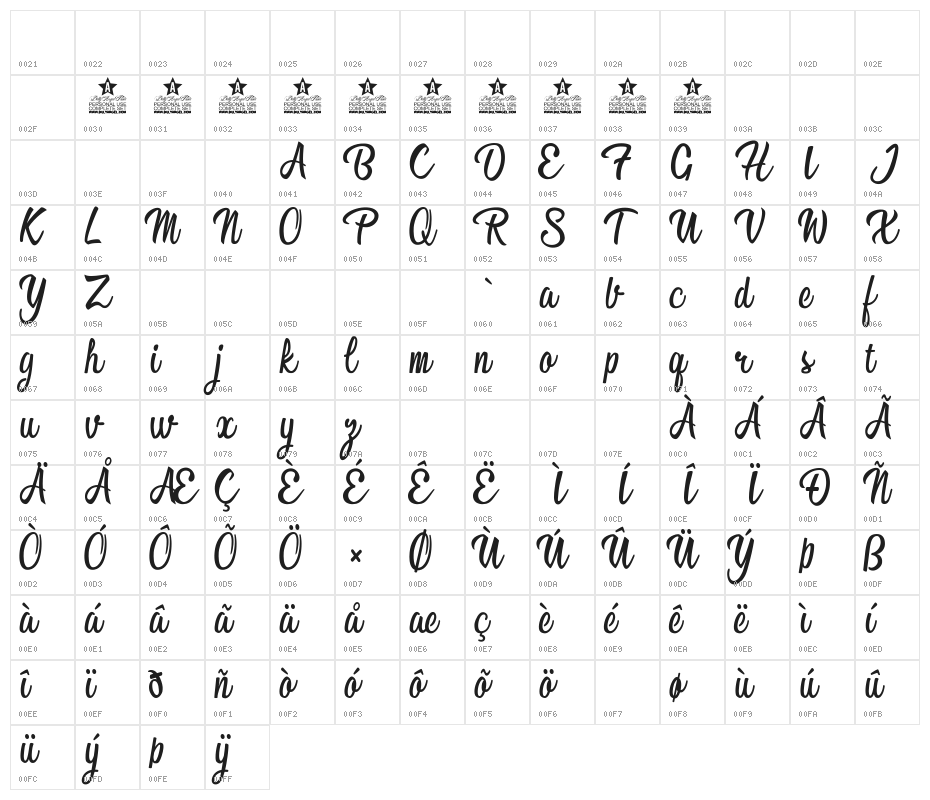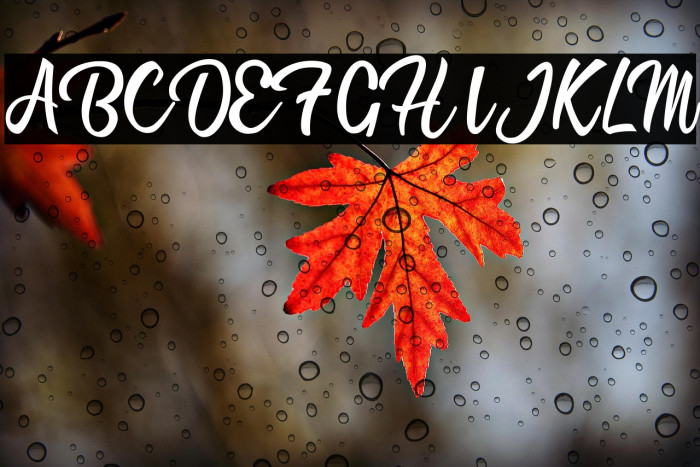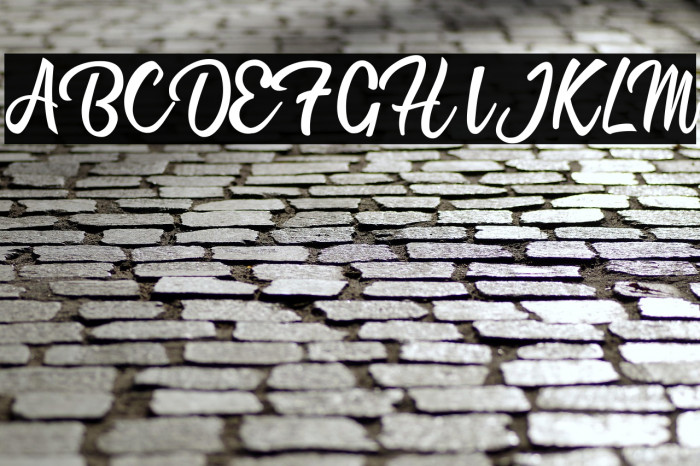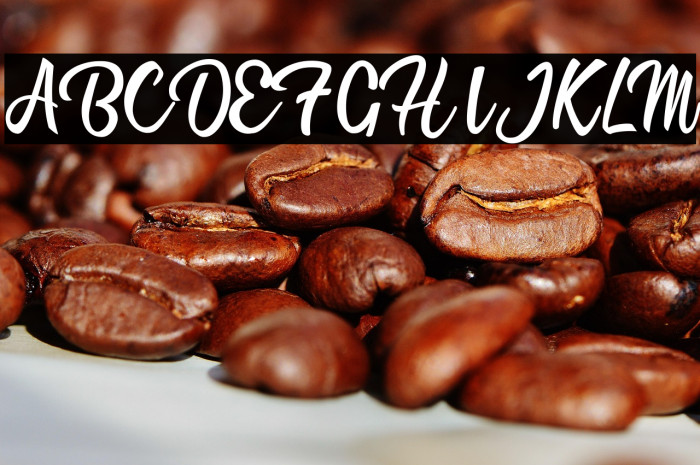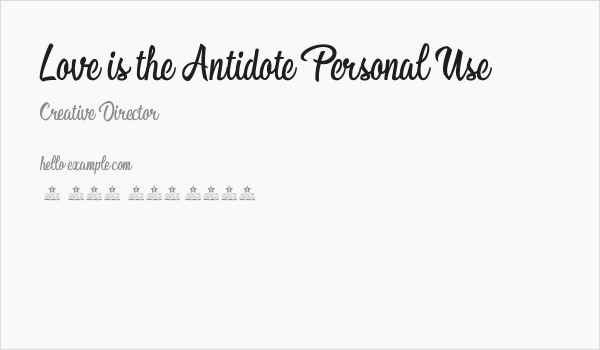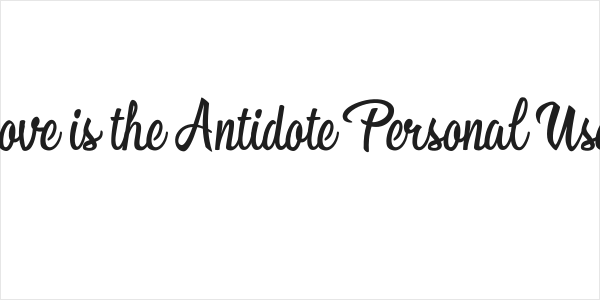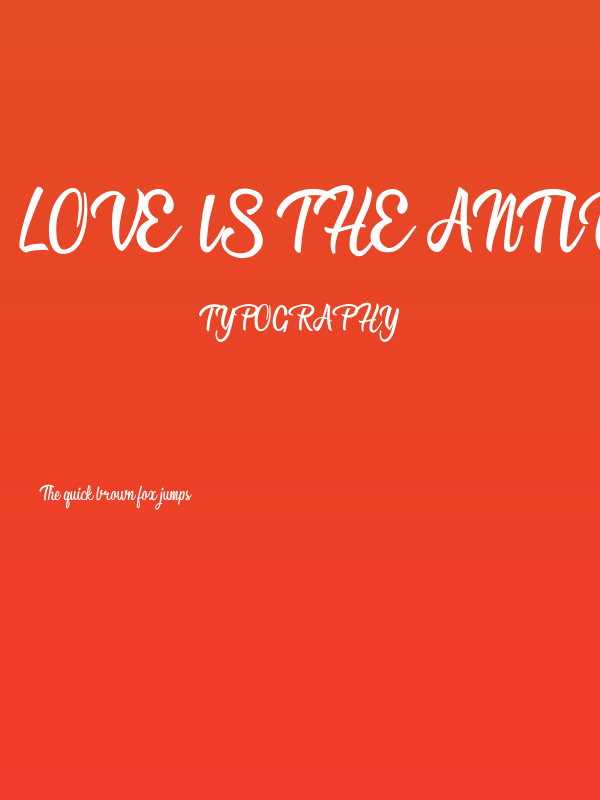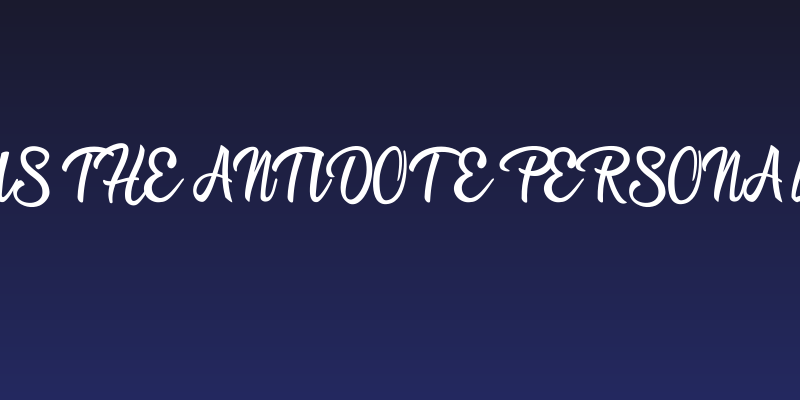
Love is the Antidote Personal Use Font
Love is the Antidote Personal Use Description
This font features a flowing, cursive style with a modern twist, characterized by smooth, continuous strokes that create a sense of elegance and fluidity. The uppercase letters are bold and slightly slanted, giving them a dynamic appearance, while the lowercase letters maintain a consistent flow with rounded edges and a slight slant. The numbers and special characters follow the same stylistic approach, ensuring uniformity across all characters. This font's design is both stylish and readable, making it suitable for various creative applications.